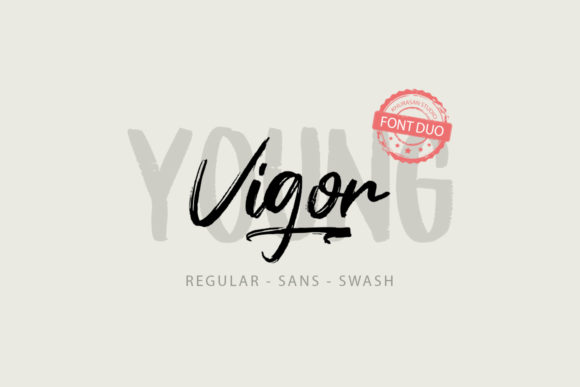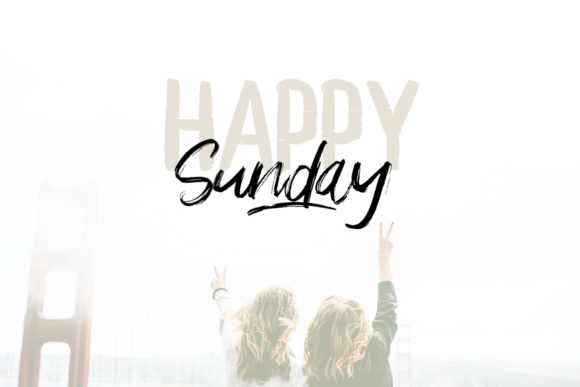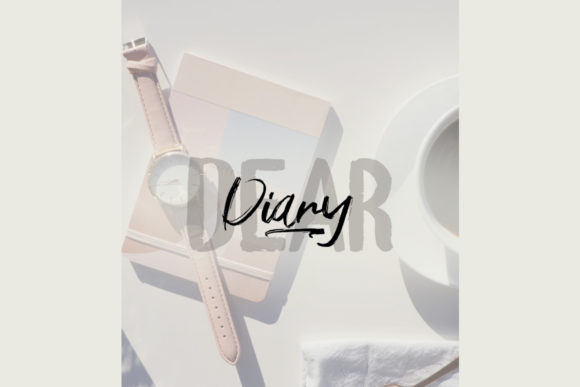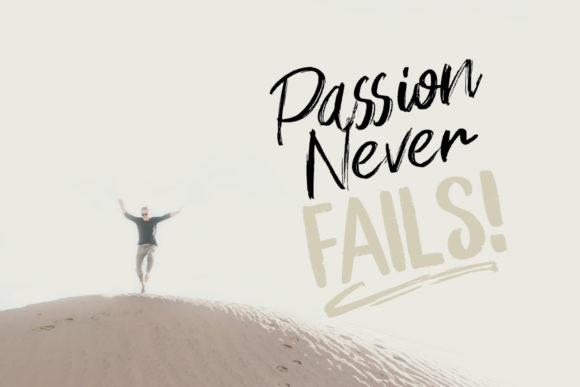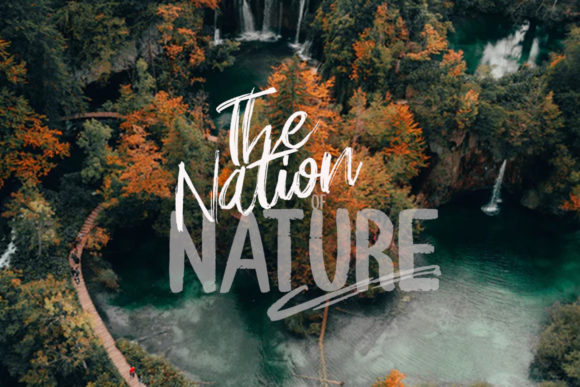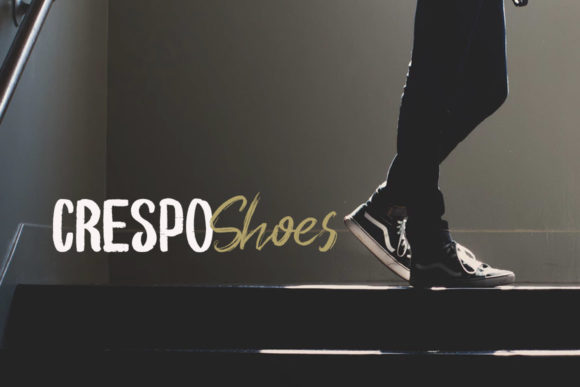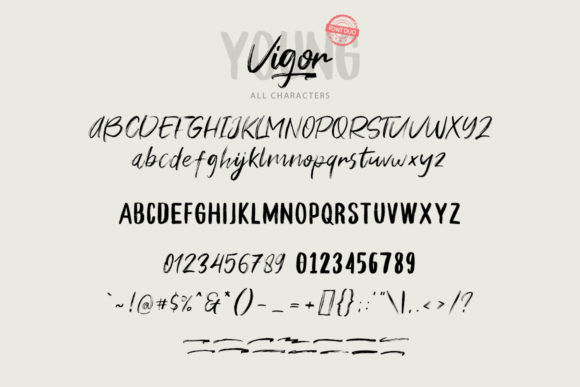
Young Vigor Duo Font
The Young Vigor is an amazing font duo. It comes in a script and sans version which can be combines perfectly, giving you the opportunity to create multiple unique designs with just this one download.